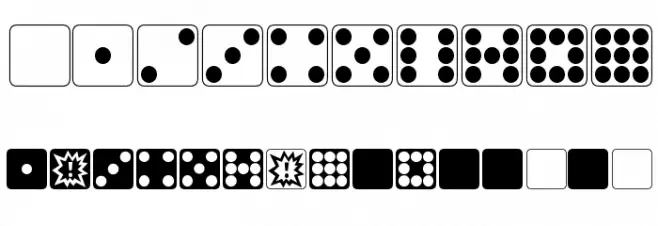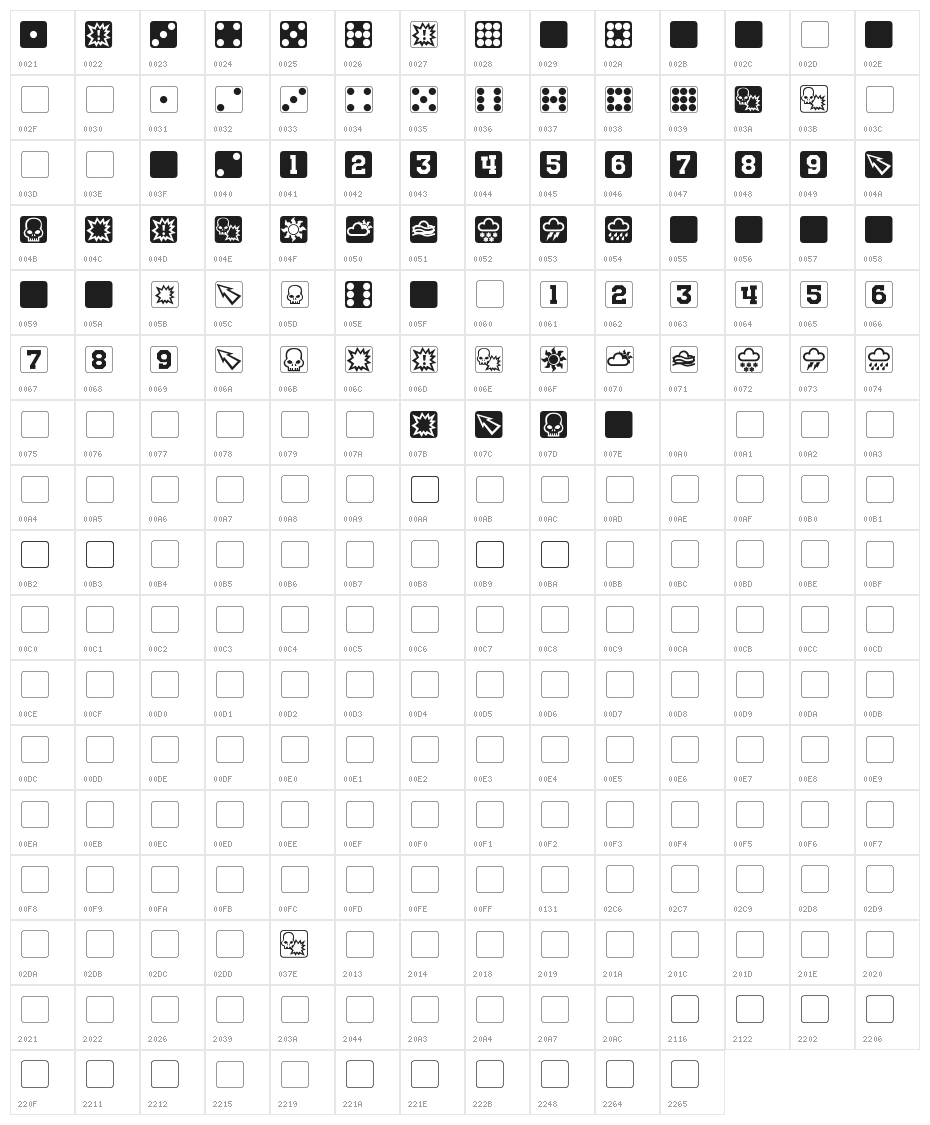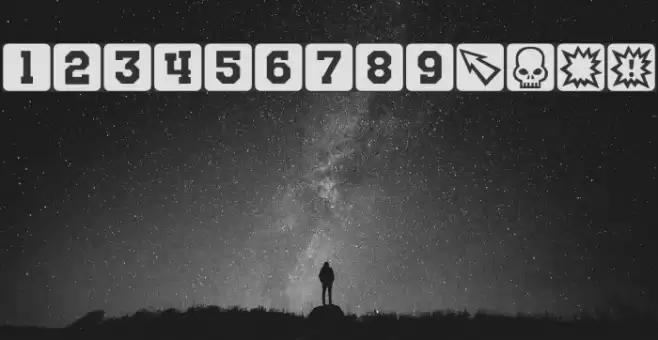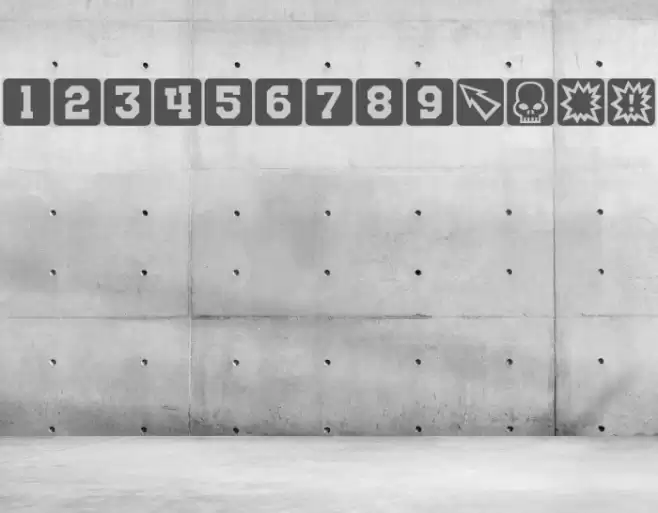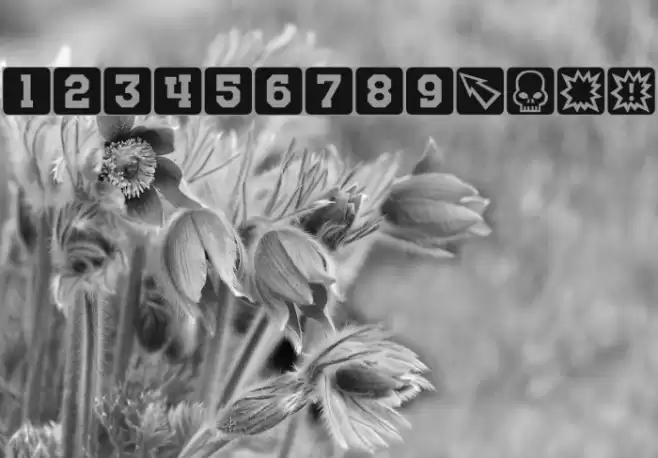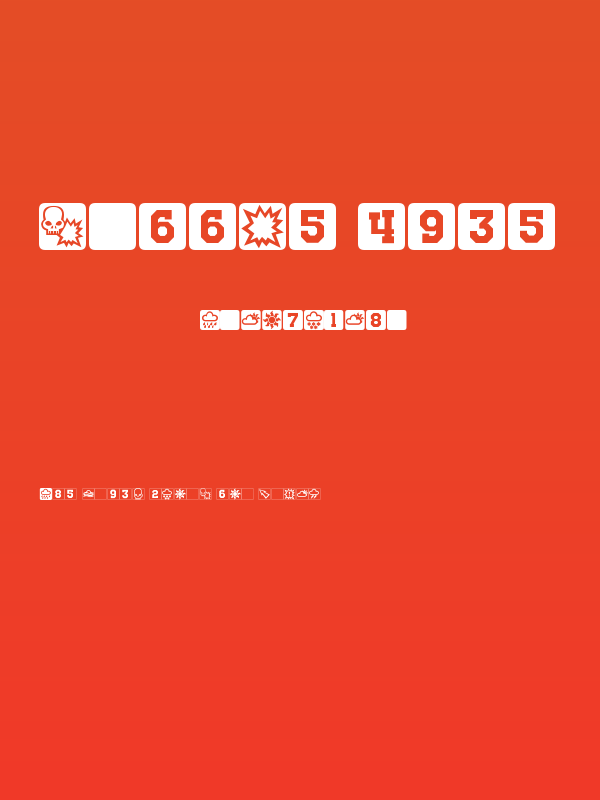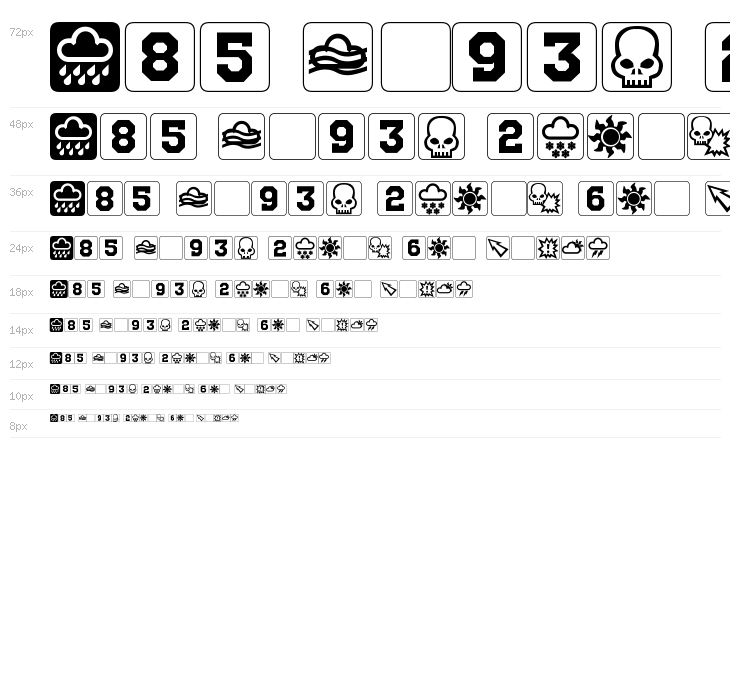
Nuffle Dice Font
Nuffle Dice Description
This is a decorative font featuring bold, block-style numbers and a variety of unique symbols. Each character is enclosed within a square, giving a uniform and structured appearance. The numbers are designed with a strong, impactful presence, making them highly visible and easy to read. The accompanying symbols include weather icons and dice faces, adding a playful and thematic element to the font. The use of both solid and outlined styles within the characters provides a dynamic visual contrast, enhancing the overall aesthetic. This font is ideal for projects that require a distinctive and thematic touch, such as game design or themed events.
| Overall Style | Playful, Thematic |
| Use Case | Game design, Themed events, Graphic design |
| Proposed Projects | Ideal for board games, themed event materials, or playful graphic designs. |